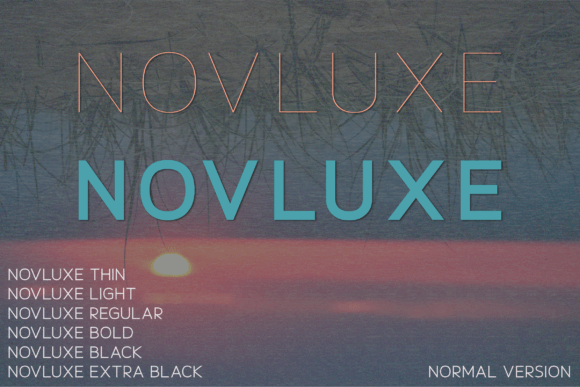
Embark on a typographic journey with Novluxe, a sans serif font family that redefines contemporary elegance. Its meticulously crafted strokes and balanced proportions evoke a sense of refinement that elevates any design project. Seamlessly adaptable to a myriad of creative endeavors, Novluxe empowers you to craft designs that exude both modernity and luxury.
With five distinct weights ranging from delicate Hairline to bold Black, Novluxe offers a versatile range of styles to suit your creative vision. Whether you're crafting a captivating magazine layout, designing a striking logo, or creating an immersive film poster, Novluxe seamlessly adapts, enhancing your designs with its timeless charm.
Experience the allure of simplicity and sophistication as your designs take center stage. Novluxe's clean lines and precise curves create a visual harmony that captivates audiences. Its understated elegance allows your content to shine, while its subtle details add a touch of understated luxury.
Embrace the power of versatility with Novluxe, a font family that effortlessly transitions from formal settings to casual contexts. Its adaptability makes it an ideal choice for a diverse range of projects, from elegant wedding invitations to eye-catching social media graphics. Unleash your creativity and explore endless possibilities with Novluxe as your trusted typographic companion.